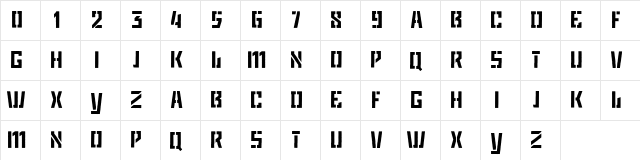
Game Plan game plan Free Font
Game Plan game plan
Style: game plan
Foundry: dker
Design Context for Game Plan
Game Plan is a composed and adaptable typeface that performs quietly and consistently across a wide range of design contexts.